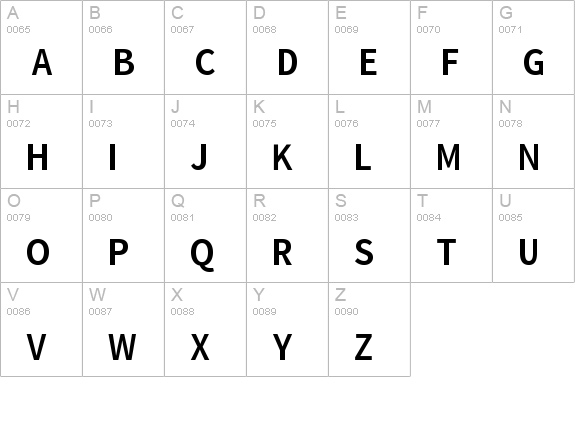
Falling Sky Condensed Font Details
Falling Sky Condensed is a distinctive, condensed-width variant in the Falling typeface family \xE2\x80\x94 well suited to design and typography projects.
Falling Sky Condensed font is a stunning typeface that captivates with its sleek and modern design. Its condensed form adds a touch of elegance and sophistication to any project, making it the perfect choice for branding, headlines, and advertising materials. The clean lines and balanced letterforms of Falling Sky Condensed create a sense of harmony and professionalism, ensuring that your message is delivered with clarity and impact. This font is not only visually appealing but also incredibly versatile. Whether you are designing a website, a poster, or a logo, Falling Sky Condensed will effortlessly adapt to your needs and enhance the overall aesthetics of your project. Its legibility and readability ensure that your text remains easily readable across different mediums and sizes, guaranteeing a seamless user experience. And the best part? Falling Sky Condensed font is available for free! You can download this exceptional typeface at FontsMarket.com, where you'll find a vast collection of high-quality fonts for all your design needs. With Falling Sky Condensed, you can elevate your designs without breaking the bank, making it an invaluable asset for both professional designers and enthusiasts alike. So, why wait? Experience the beauty and versatility of Falling Sky Condensed font today and take your designs to new heights. Download it for free at FontsMarket.com and unlock a world of creative possibilities.